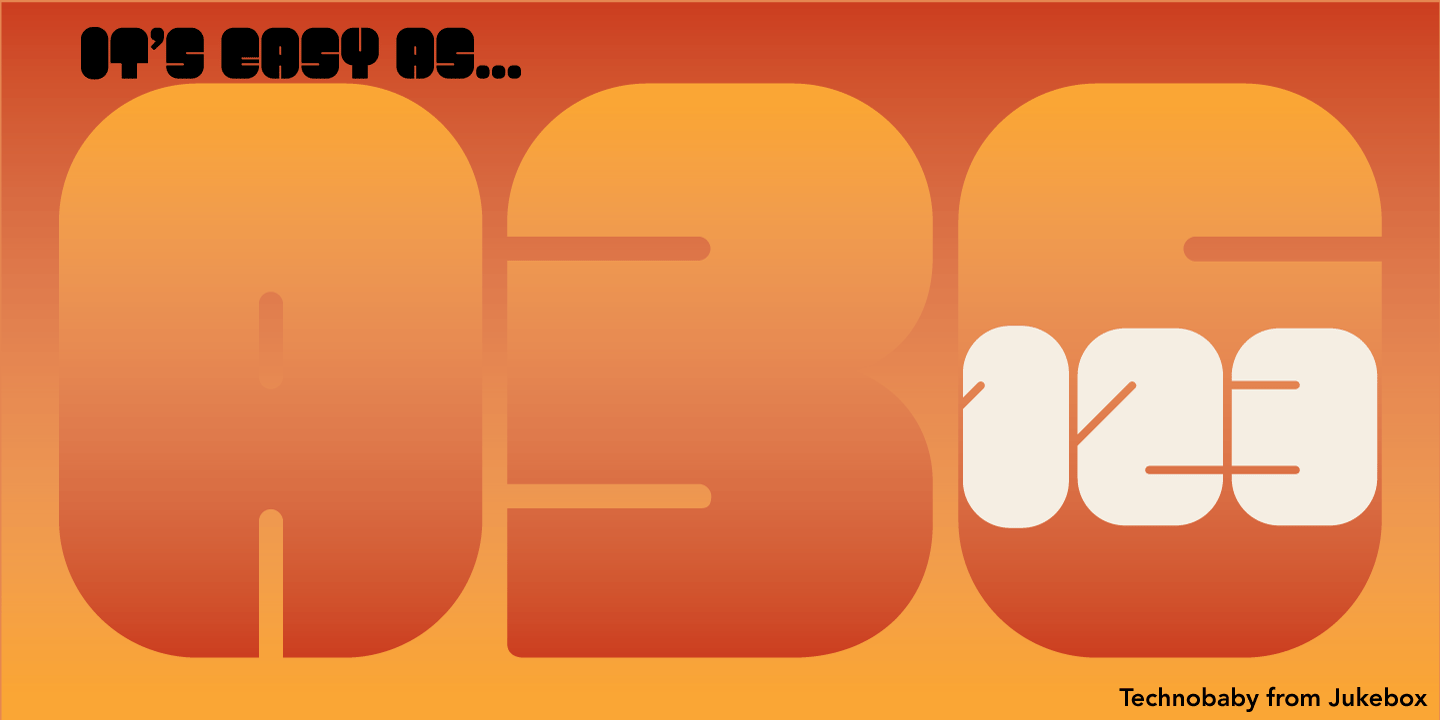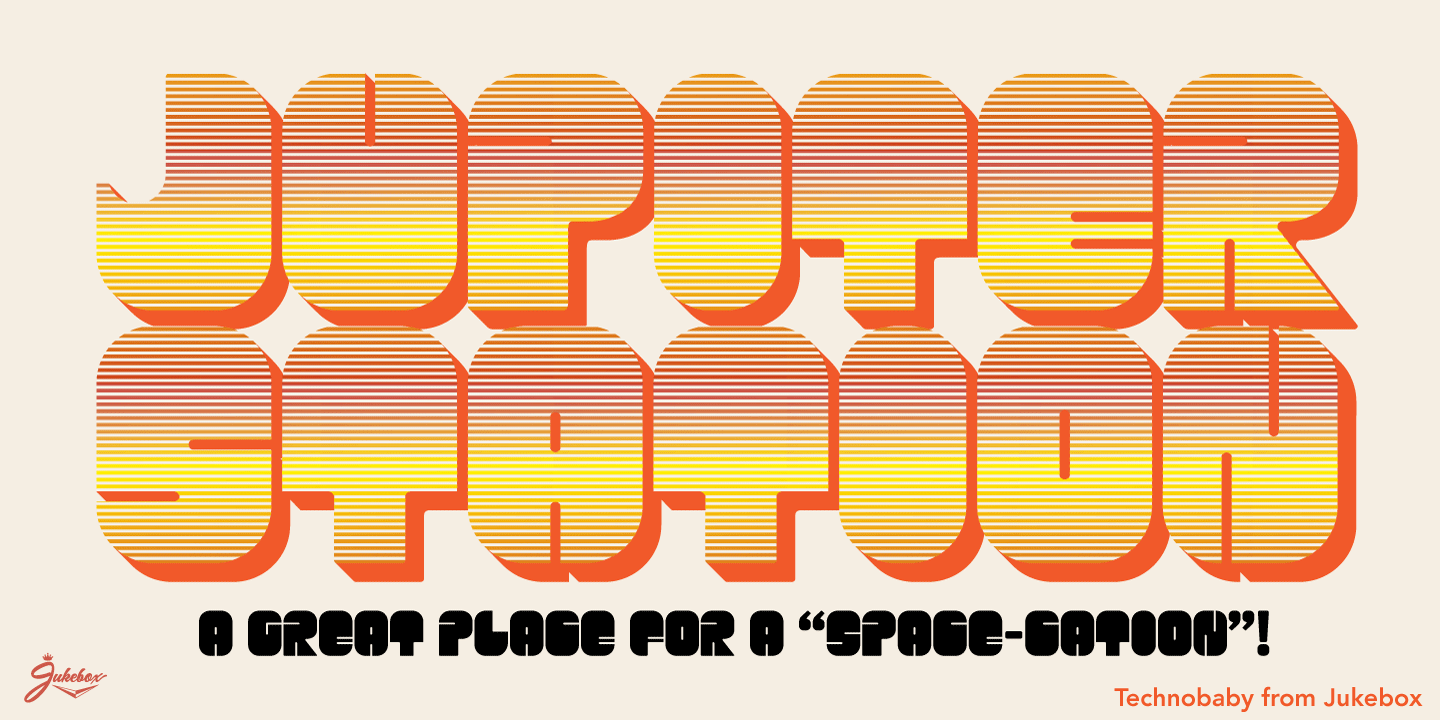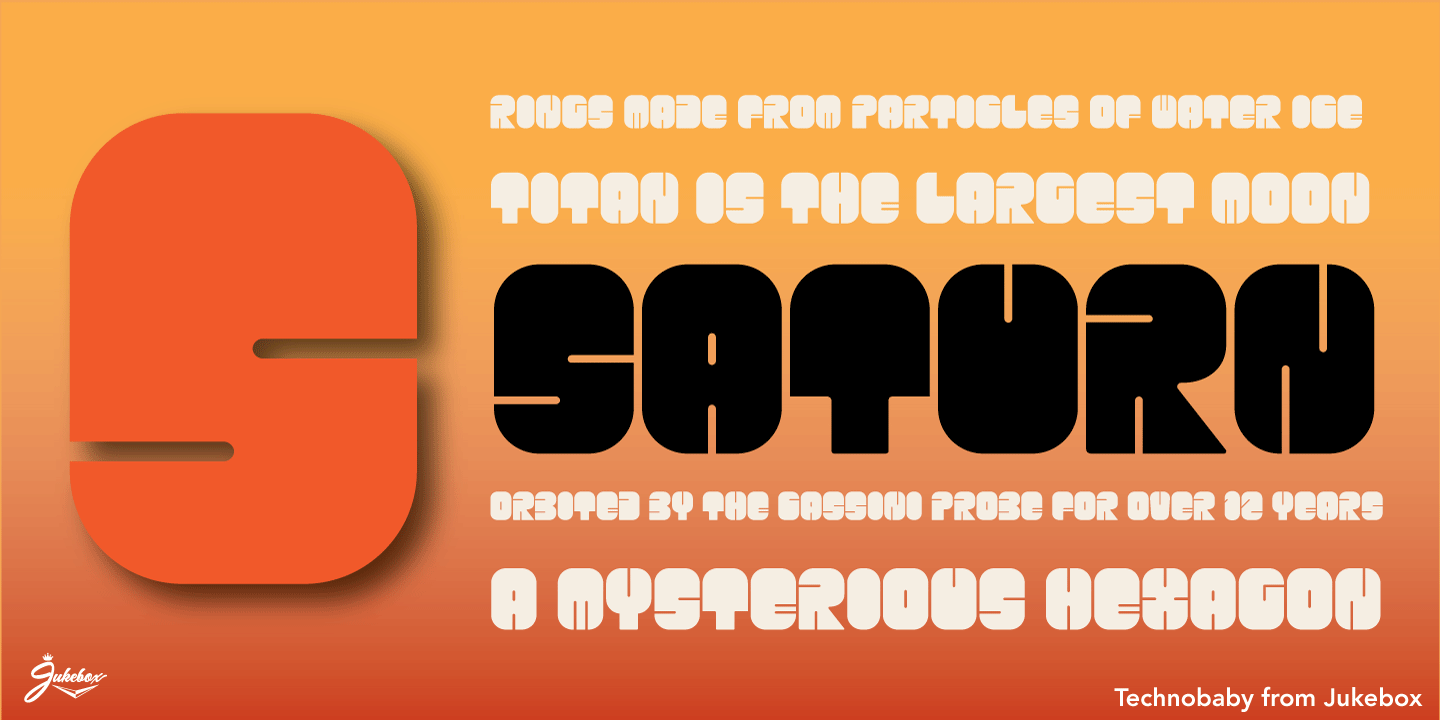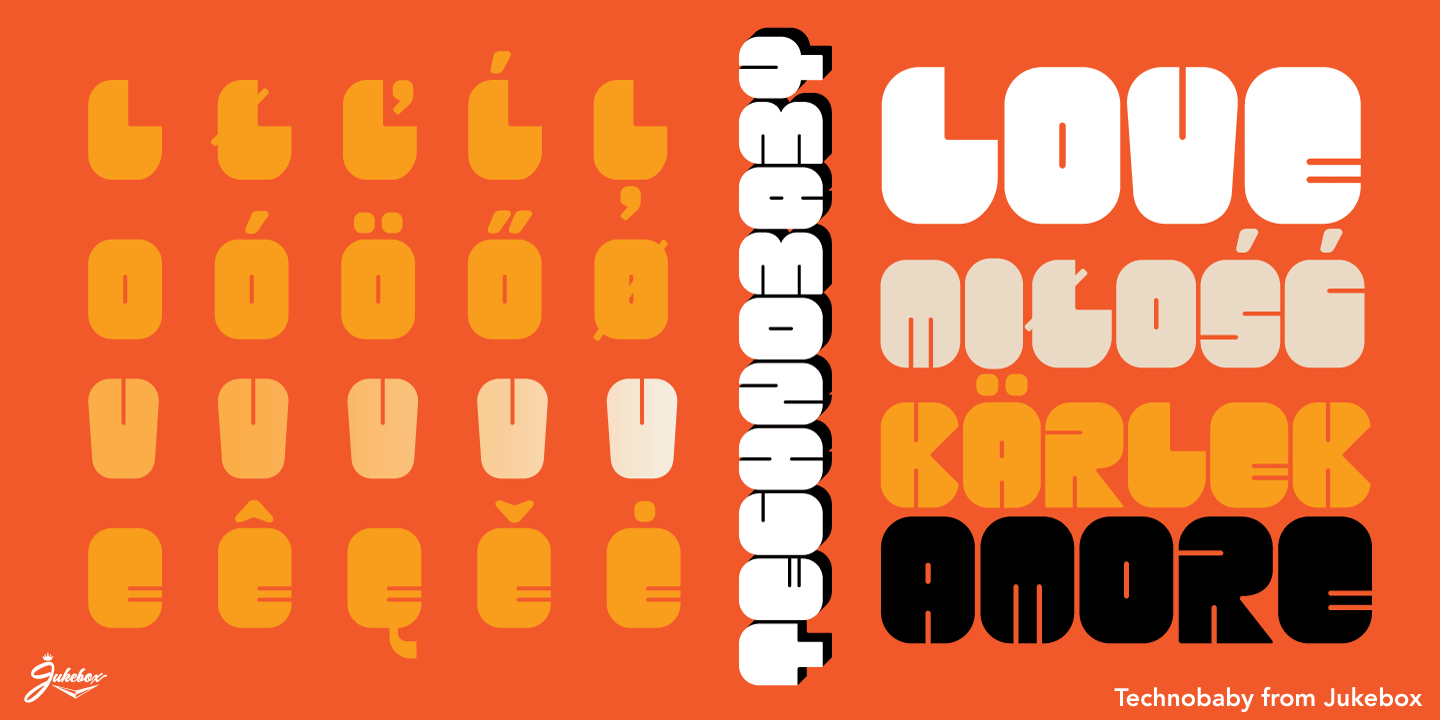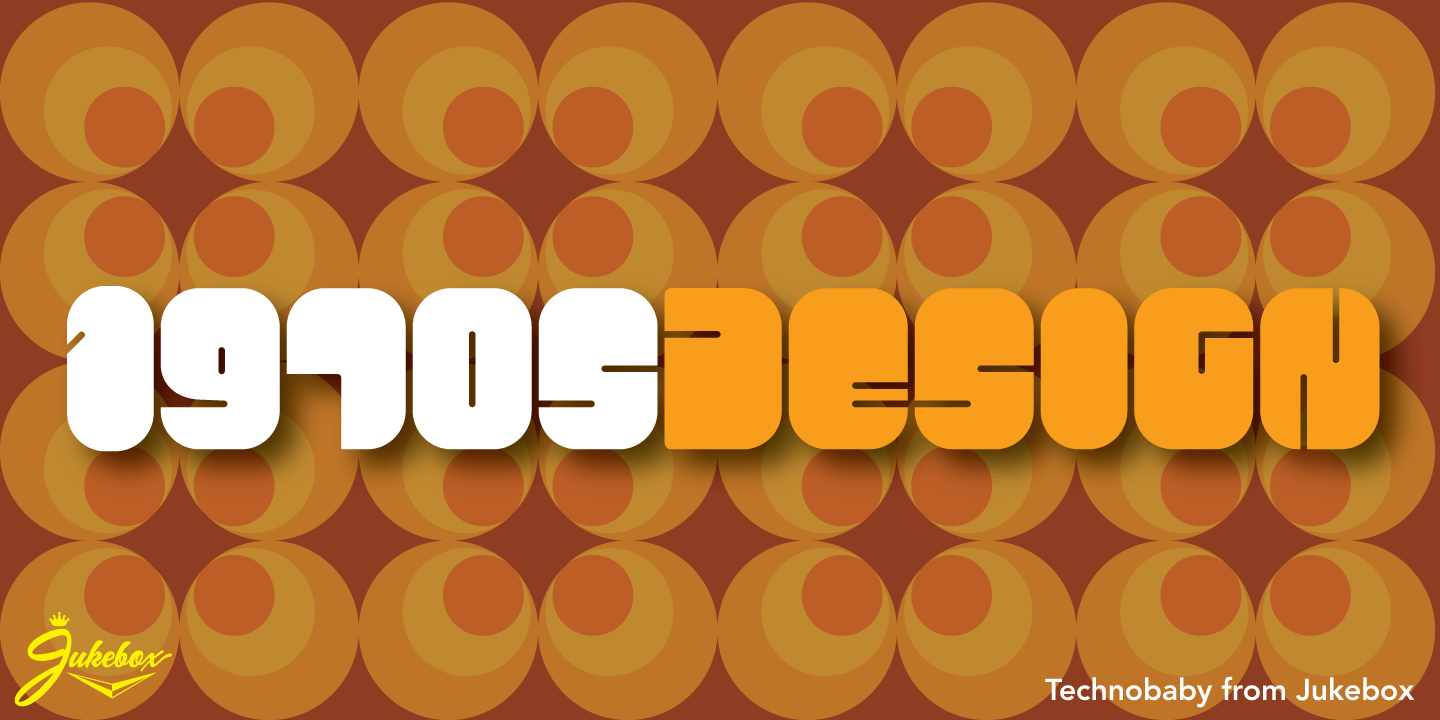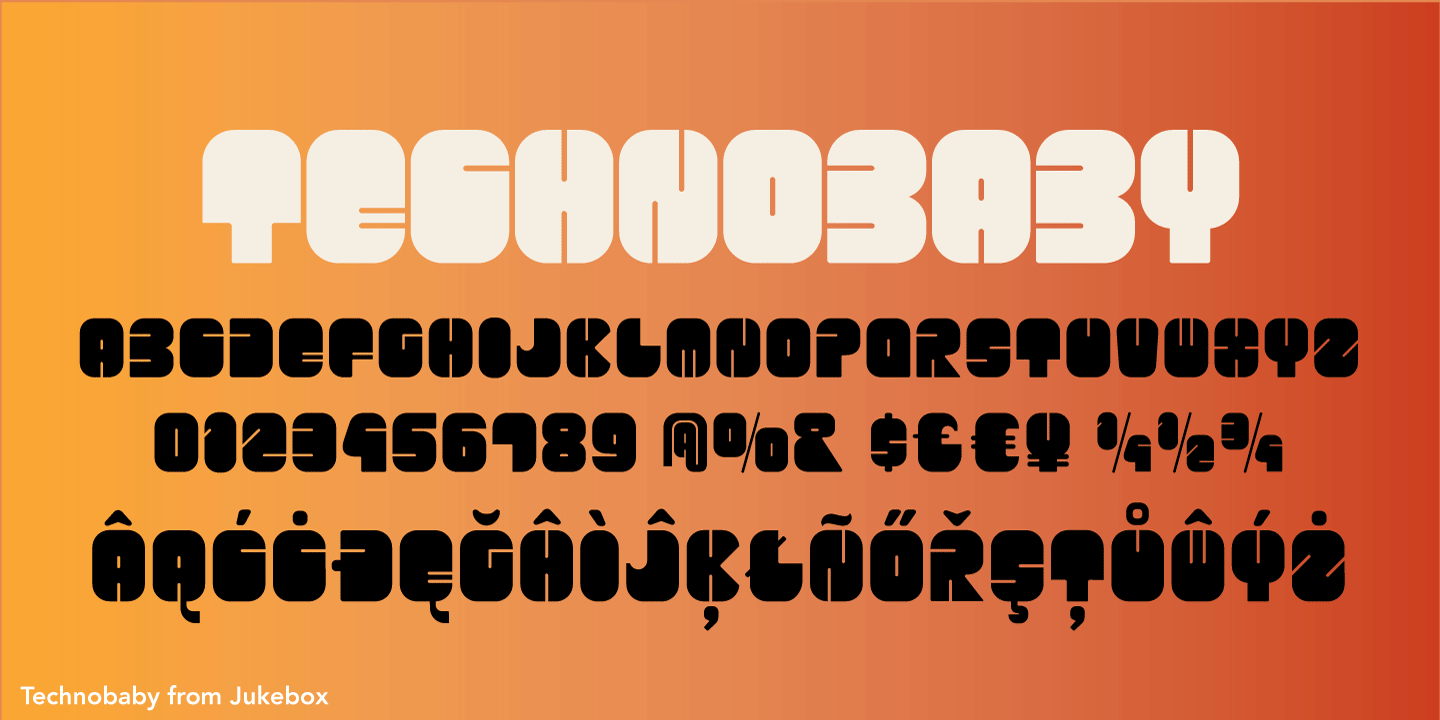
About Technobaby
Technobaby is a funky futuristic font done with modular letterforms. This typeface arose from me playing around with the rounded rectangle shape. I wanted to see how many different letters I could create by simply changing the locations of the slots cut…